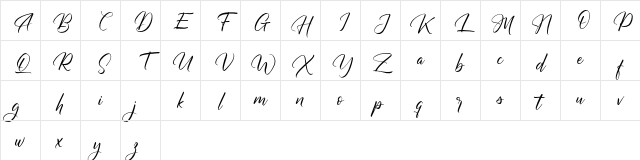
Complete Margaritha Tropicana FREE Regular glyph index. Displaying only characters natively supported by Margaritha Tropicana FREE Regular font.
Margaritha Tropicana FREE is a composed and adaptable typeface that performs quietly and consistently across a wide range of design contexts.